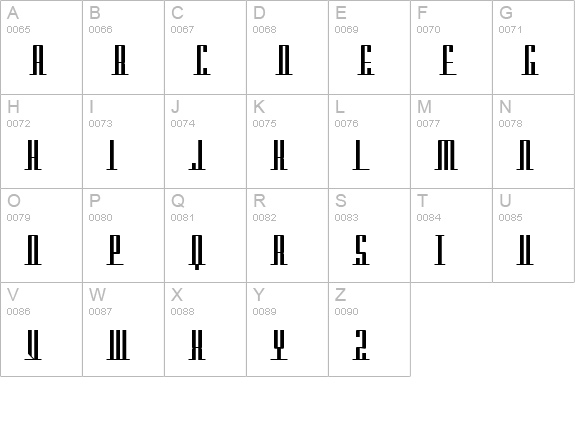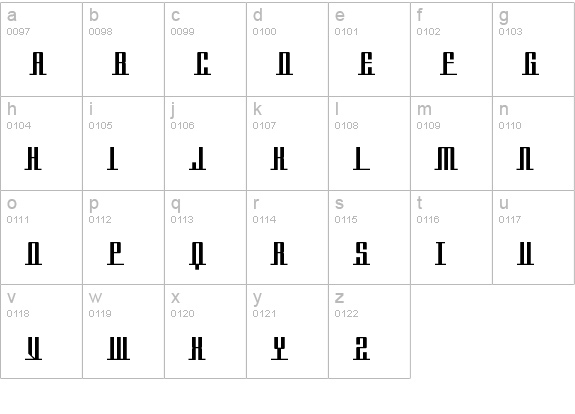
Americana Dreams SC Upright Font Details
Americana Dreams SC Upright font is a classic and charming typeface that evokes a sense of nostalgia and Americana spirit. With its clean lines and elegant design, this font is perfect for a wide range of projects, from vintage-inspired branding to rustic signage. The tall, upright letters exude a sense of strength and tradition, making it a versatile choice for both print and digital applications. What makes Americana Dreams SC Upright font even more appealing is that it is available for free download at FontsMarket.com. This means you can easily access and use this beautifully crafted font in your designs without any cost. Whether you're working on a personal project or a professional assignment, Americana Dreams SC Upright font is sure to add a touch of timeless elegance and Americana flair to your work. Download it now and let your creativity soar with this stunning typeface!